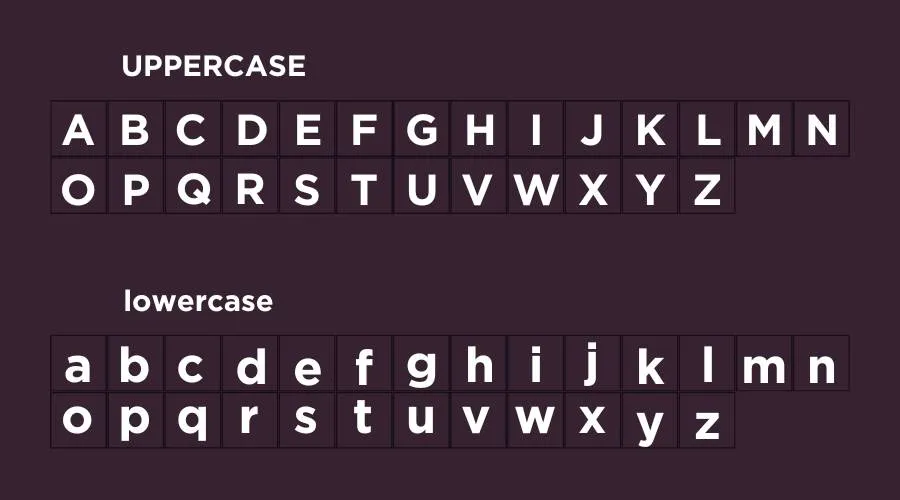
Gotham Bold Font
About Gotham Bold Font
The Gotham Bold Font was invented by a famous typographic designer Tobias Frere-Jones, with Jesse Ragan. It is free for all your fun purposes and is under the category of the basic sans-serif texture family. In 2000, this font was published through Hoefler & Co.
This stunning typeface contains various type of variations such as Gotham Narrow, Gotham X-Narrow, Gotham Rounded, Gotham Condensed, and Gotham Bold.